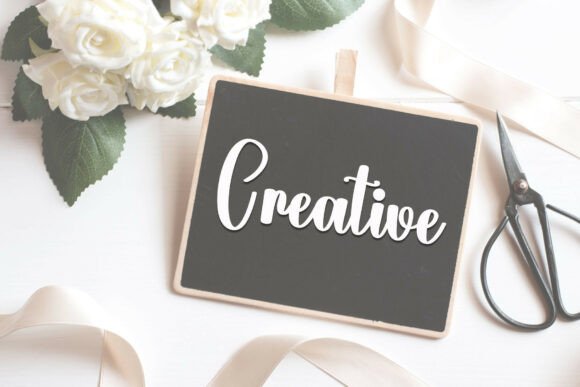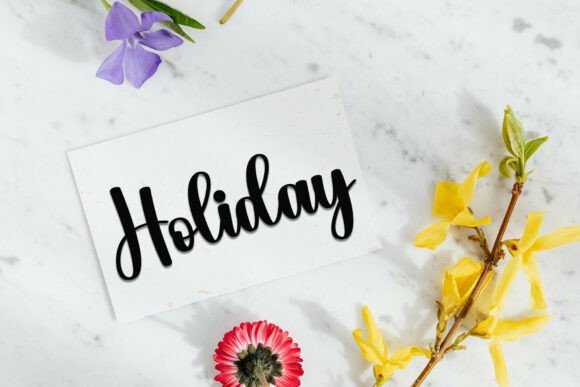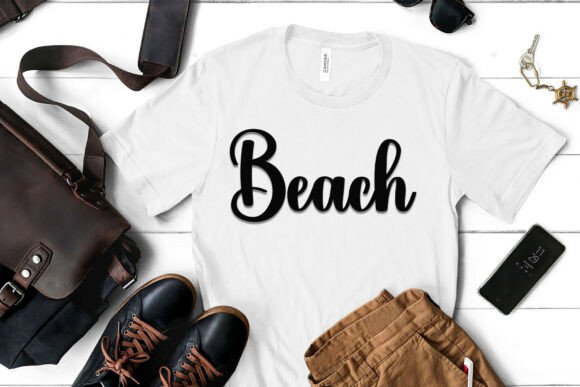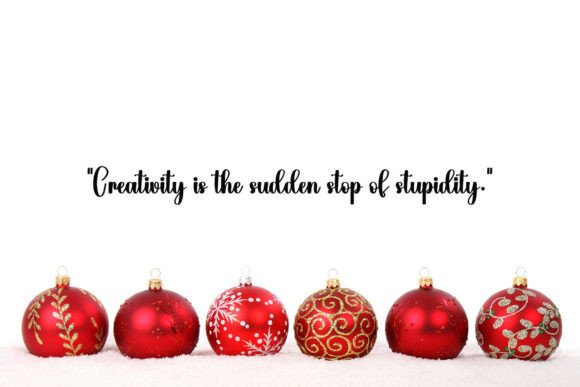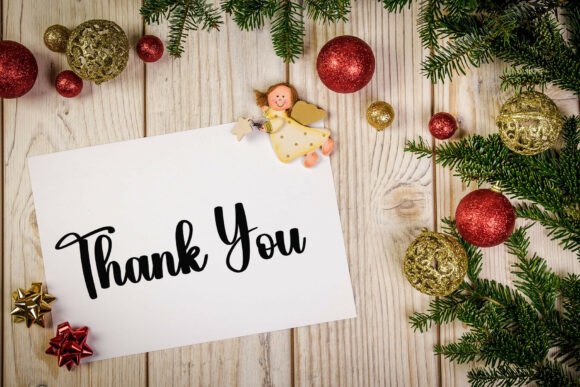
Introducing Burning Font: The Sweet and Cursive Handwritten Font for Your Design Needs
Are you looking for a font that can add a touch of elegance and romance to your designs? Look no further than Burning Font, a sweet and cursive handwritten font that is perfect for a variety of design projects. With its gentle and flowing curves, Burning Font is sure to make your designs stand out and leave a lasting impression.
What Makes Burning Font So Special?
Burning Font is a unique and versatile font that can be used for a wide range of design projects. Its cursive and handwritten style gives it a personal and intimate feel, making it perfect for designs that require a touch of warmth and personality. Whether you’re working on a branding project, creating a logo, or designing a wedding invitation, Burning Font is the perfect choice.
One of the things that sets Burning Font apart from other fonts is its ability to add a joyful and romantic touch to any design. Its flowing curves and gentle lines make it perfect for creating designs that are elegant, yet still casual and approachable. Whether you’re designing for a fashion brand, creating a lookbook, or working on a marketing promotion, Burning Font is sure to help you achieve your design goals.
Burning Font is a versatile font that can be used for a wide range of design projects, including:
- Branding: Use Burning Font to create a unique and memorable brand identity that sets you apart from the competition.
- Logo Design: Create a stunning logo that showcases your brand’s personality and style with Burning Font.
- Wedding Designs: Add a touch of romance and elegance to your wedding designs, including invitations, programs, and decorations.
- Greeting Cards: Create beautiful and heartfelt greeting cards for any occasion with Burning Font.
- Fashion: Use Burning Font to create stunning fashion designs, including lookbooks, catalogs, and advertisements.
- Marketing Promotions: Add a touch of elegance and sophistication to your marketing promotions, including brochures, flyers, and posters.
Why Choose Burning Font?
There are many reasons why Burning Font is the perfect choice for your design needs. Here are just a few:
- Unique and Versatile: Burning Font is a unique and versatile font that can be used for a wide range of design projects.
- Elegant and Romantic: Burning Font adds a touch of elegance and romance to any design, making it perfect for designs that require a personal and intimate feel.
- Easy to Read: Burning Font is easy to read and understand, making it perfect for designs that require a clear and concise message.
- Scalable: Burning Font is scalable, making it perfect for designs that require a font that can be used at a variety of sizes.
How to Use Burning Font
Tips and Tricks for Getting the Most Out of Burning Font
Here are a few tips and tricks for getting the most out of Burning Font:
- Use it with a contrasting font: Burning Font looks great when paired with a contrasting font. Try pairing it with a bold and modern font for a striking contrast.
- Experiment with different colors: Burning Font looks great in a variety of colors. Experiment with different colors to find the one that works best for your design.
- Use it sparingly: Burning Font is a elegant and romantic font. Use it sparingly to add a touch of elegance and sophistication to your design.
Burning Font is a sweet and cursive handwritten font that is perfect for a variety of design projects. Its gentle and flowing curves make it perfect for adding a touch of elegance and romance to any design. With its versatility and scalability, Burning Font is the perfect choice for designers and crafters who want to create stunning designs that stand out from the crowd.